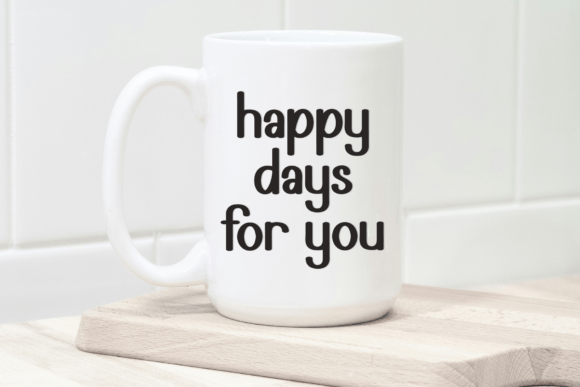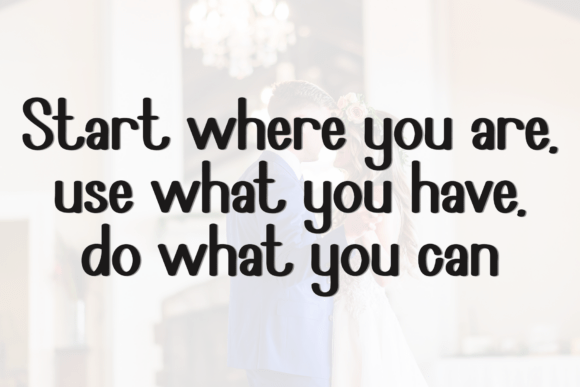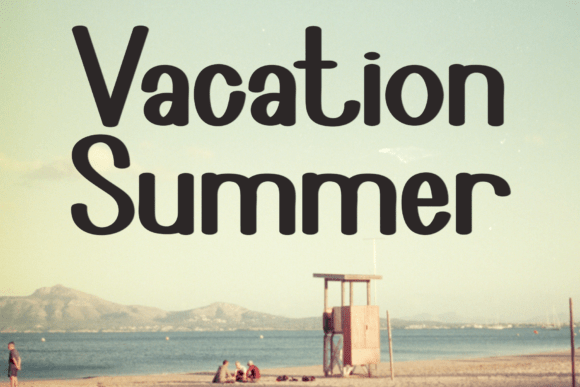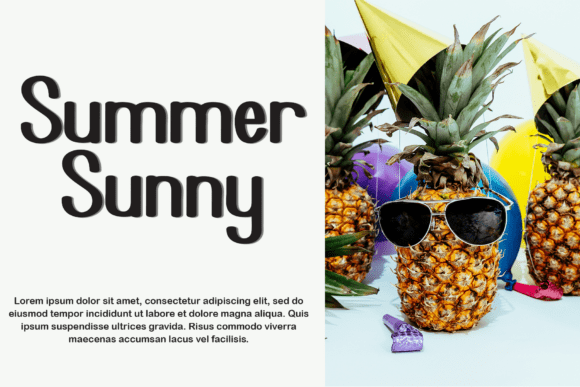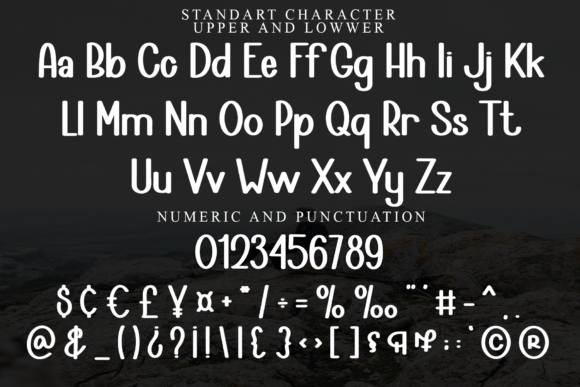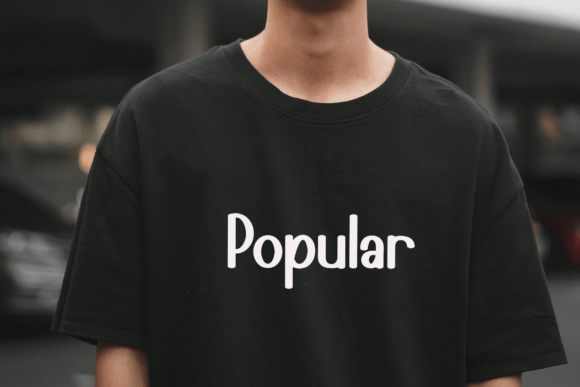
Introducing Cheese Breaker Font: The Ultimate Holiday Typeface
The holiday season is upon us, and what better way to get into the spirit than with a festive and merry typeface? Look no further than Cheese Breaker Font, a decorative and whimsical font that’s perfect for adding a touch of enchantment to your designs. In this article, we’ll dive into the world of Cheese Breaker Font and explore its features, uses, and benefits for designers and crafters.
Cheese Breaker Font is a unique and eye-catching typeface that’s specifically designed to capture the spirit of the holiday season. Its decorative elements and whimsical flair make it the perfect choice for adding a touch of magic to your designs. Whether you’re creating greeting cards, gift tags, or holiday-themed projects, this font is sure to bring a cheerful and nostalgic ambiance to your words.
So, what makes Cheese Breaker Font so special? For starters, its festive and merry design makes it perfect for a wide range of holiday projects. Imagine creating beautiful greeting cards, gift tags, and holiday-themed crafts that are sure to delight your friends and family. With Cheese Breaker Font, you can add a touch of enchantment to your designs and make them truly special.
So, what are some of the key features and benefits of Cheese Breaker Font? Here are just a few:
- Festive and merry design: Perfect for holiday projects and designs
- Decorative elements and whimsical flair: Adds a touch of enchantment to your designs
- Perfect for greeting cards, gift tags, and holiday-themed projects: Adds a cheerful and nostalgic ambiance to your words
Have questions about Cheese Breaker Font? Here are some frequently asked questions:
- What is Cheese Breaker Font?
- Cheese Breaker Font is a festive and merry typeface that’s perfect for holiday projects and designs.
- What can I use Cheese Breaker Font for?
- Cheese Breaker Font is perfect for greeting cards, gift tags, holiday-themed projects, and more!